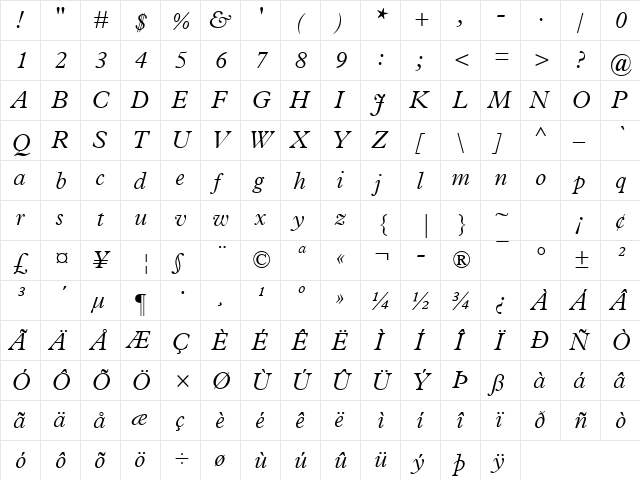
Plantin MT Light Italic Font Preview
Design Context for Plantin MT Light Typeface
Plantin MT Light takes a measured approach to typography — its balanced proportions and neutral character make it a reliable workhorse for both digital and print work. Its italic angle brings a sense of urgency and motion to the letterforms. The delicate stroke weight brings airiness and refinement to layouts.
Pro Tip: Try Plantin MT Light for annotation and caption copy alongside an upright companion — the contrast in angle creates a dynamic but ordered typographic system.